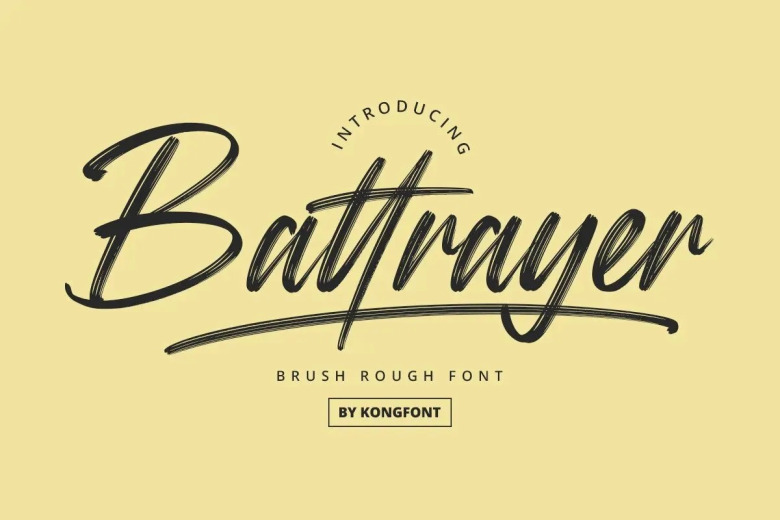
Battrayer Font
The Battrayer font is Joel Wannier’s first digital experiment with lowercase. According to Wannier, he always liked to look at handmade textures and then think about making it into a font. For most designers, it is necessary to have a feeling of retro and old when choosing fonts. But for those who need something fun, they can use this typeface as an alternative.
Battrayer is brush font with natural rough dry brush strokes, and the stroke of hand sharp and quickly. This font can be used for any design projects where you need to use handwriting with style. It is perfect for wedding designs, blogs and even logos.
Battrayer Brush Script Font